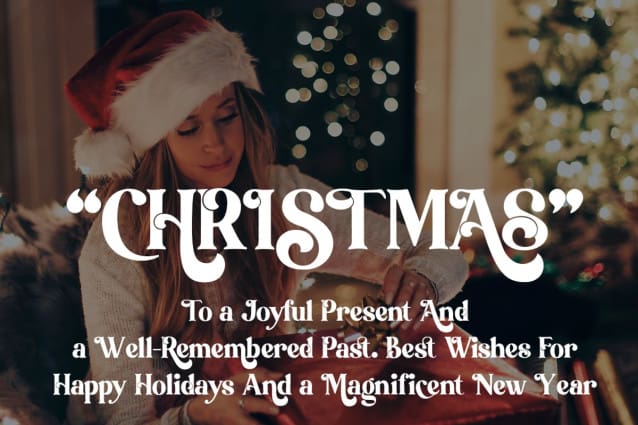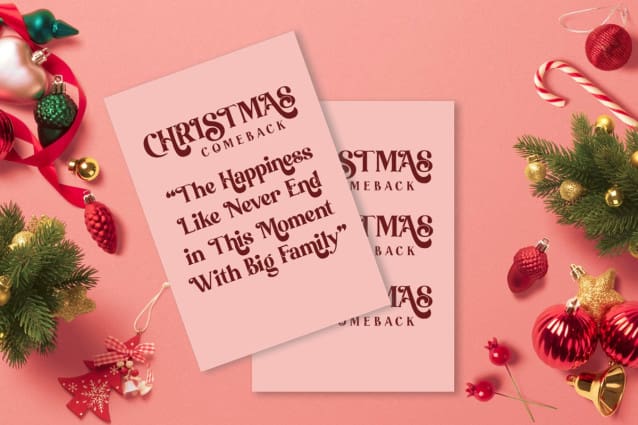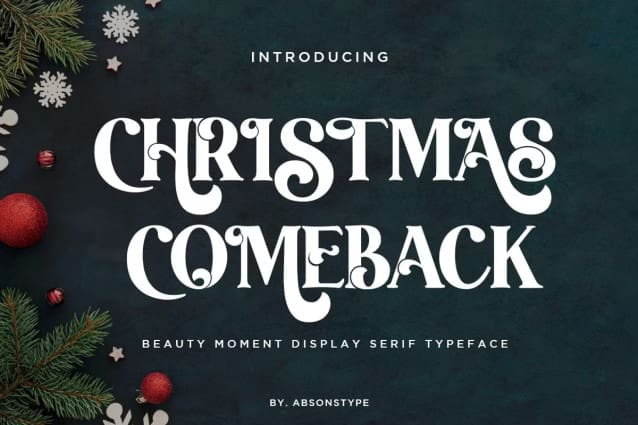
Christmas Comeback Serif Font
Christmas Comeback Typeface is the Serif display typeface with combine uppercase and lowercase looks and feel nice balanced. Provide with alternates and ligatures font in variant style make the design letter looks nice. Honestly it works perfectly for headlines, logos, posters, packaging, T-shirts and much more.